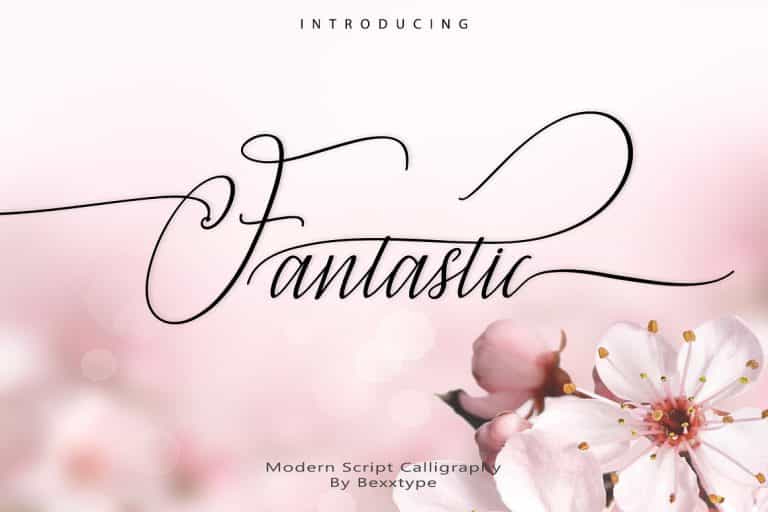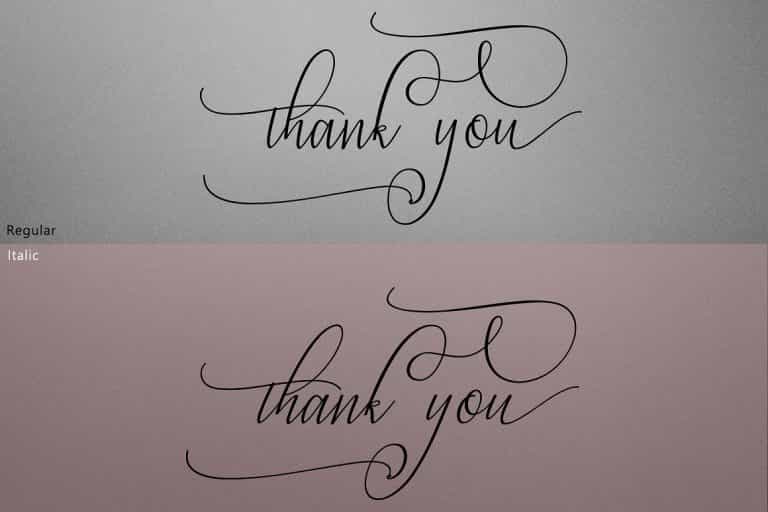
Introducing Fantastic Font. The Fantastic script is a contemporary calligraphy manuscript, the bottom line that moves and flows naturally. It is a casual and at the same time classy design. Can be applied to different things. Logos, titles of wedding invitations, t-shirts designs and others are all made by graphics designers.